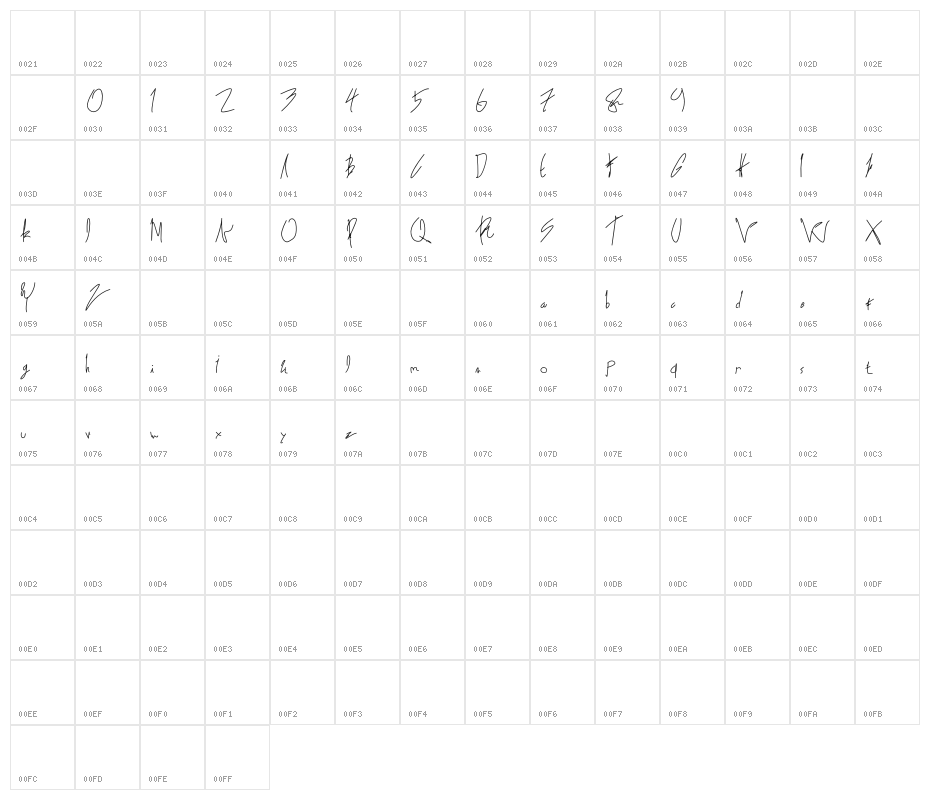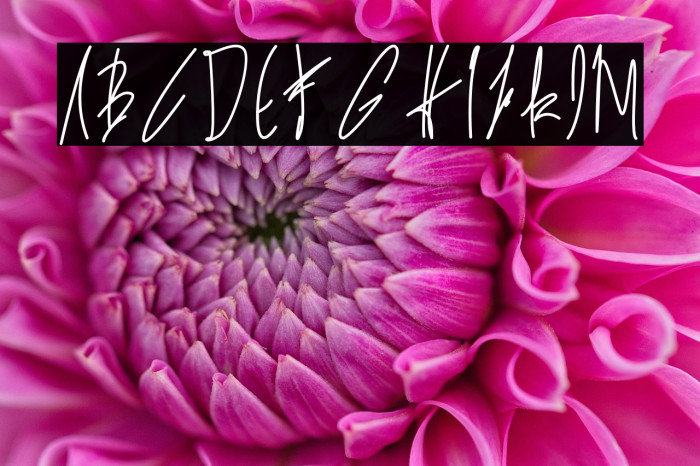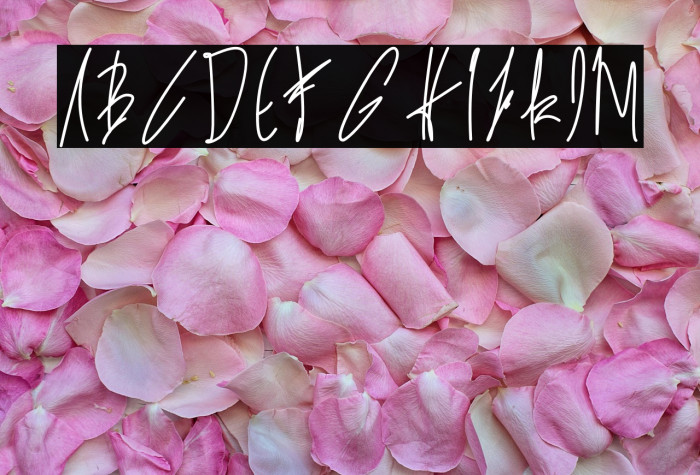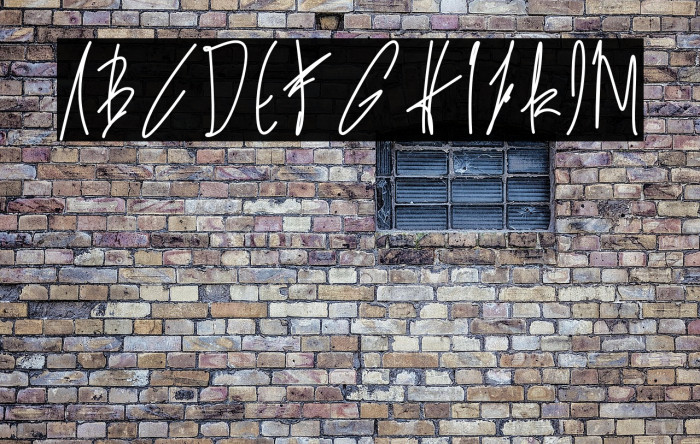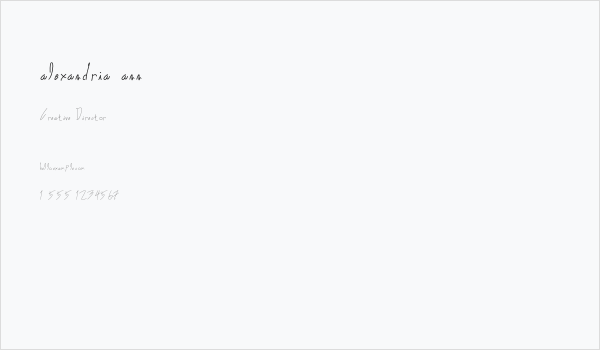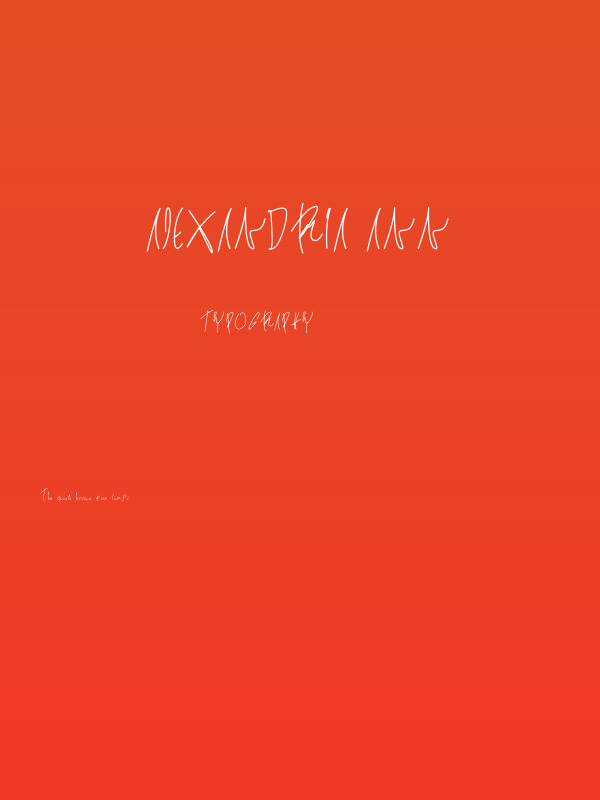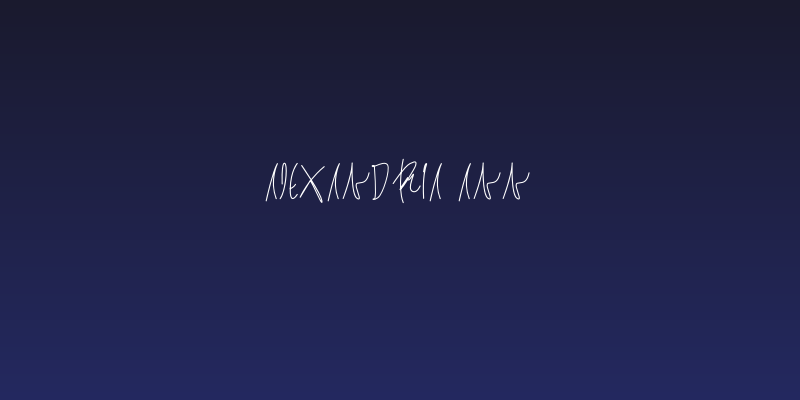
alexandria ann Font
alexandria ann Description
This font showcases a unique handwritten style, characterized by its fluid and organic strokes. The letters are unevenly spaced, giving it a casual and spontaneous appearance. The uppercase letters are tall and narrow, while the lowercase letters maintain a consistent height, adding to the font's informal charm. The numbers follow the same handwritten aesthetic, with varying stroke thickness that adds a dynamic feel. Special characters are integrated seamlessly, maintaining the overall style. This font is perfect for projects that require a personal touch or a creative flair.
| Overall Style | Casual, Artistic |
| Use Case | Creative projects, Personal notes, Invitations |
| Proposed Projects | Ideal for personal notes, creative projects, invitations, and artistic branding. |